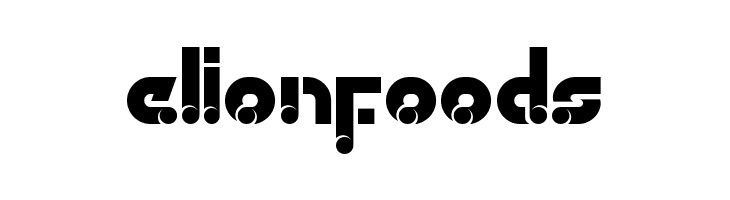
Mike Ferrari_16017 Regular Font
An elegant script font with intricate swashes and flowing letterforms.
Noto Serif Georgian Condensed Font
The image shows missing glyphs or unsupported characters.
Noto Sans Georgian Condensed Font
A modern, condensed sans-serif font with medium contrast and geometric precision.
Tir Font
A geometric, abstract font with bold, uniform lines and a modern, minimalist style.
Mitraa Bold Font
A bold, modern font with thick strokes and a strong presence.
Destkhat Plain Font
A flowing, cursive-like font with a modern yet traditional aesthetic.
Compset Bold Font
A bold, modern font with high contrast and decorative style.
Touppeka Font
A bold, geometric font with a tribal aesthetic and intricate line patterns.
Mitraa Font
An artistic and modern font with elegant curves and unique character shapes.
Rectangle I Font
A bold, geometric font with a futuristic, digital aesthetic.
Noto Serif Georgian ExtraBold Font
A bold, geometric font with uniform spacing and a modern, minimalistic style.
Mashhad Font
A sophisticated script font with elegant, flowing characters and a calligraphic touch.
niken Font
A bold, dynamic script font with a lively and energetic style.
Entezaar II Font
An artistic and decorative font with abstract and culturally inspired elements.
Destkhat VI Font
A fluid and artistic script font with a handwritten quality.
Oshtok Font
A playful, whimsical font with rounded, flowing letterforms.
Spaghetti Medium Font
A playful, hand-drawn font with a whimsical, cartoonish style.
Arsh Font
A bold, geometric, and decorative font with a futuristic style.
Diwaani 3D Shadow Font
A bold 3D shadow font with a modern calligraphic style.
Baarik I Font
A modern, geometric font with characters enclosed in rectangles.